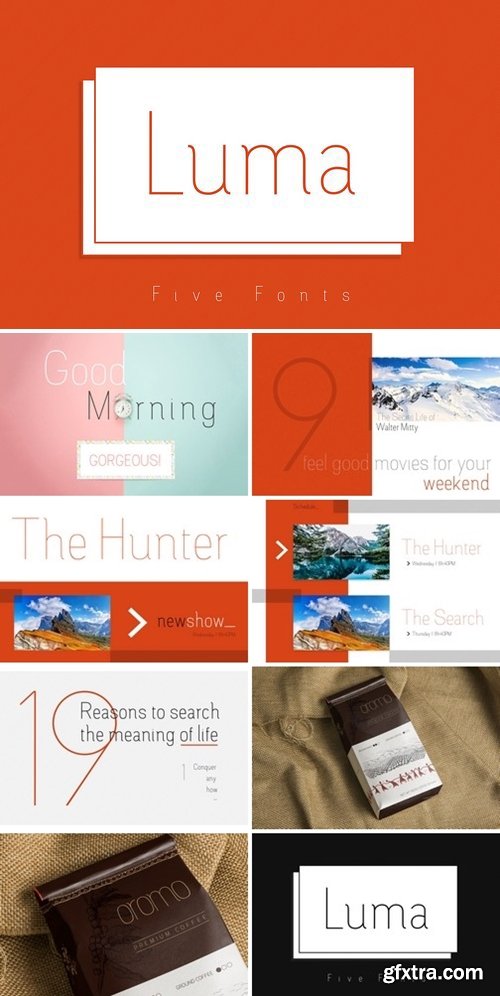
Luma is a 5 weight sans serif thin font font perfect for print and web. Designed for clean and harmonious look makes it great for headlines on web, packing, editorial and signage.